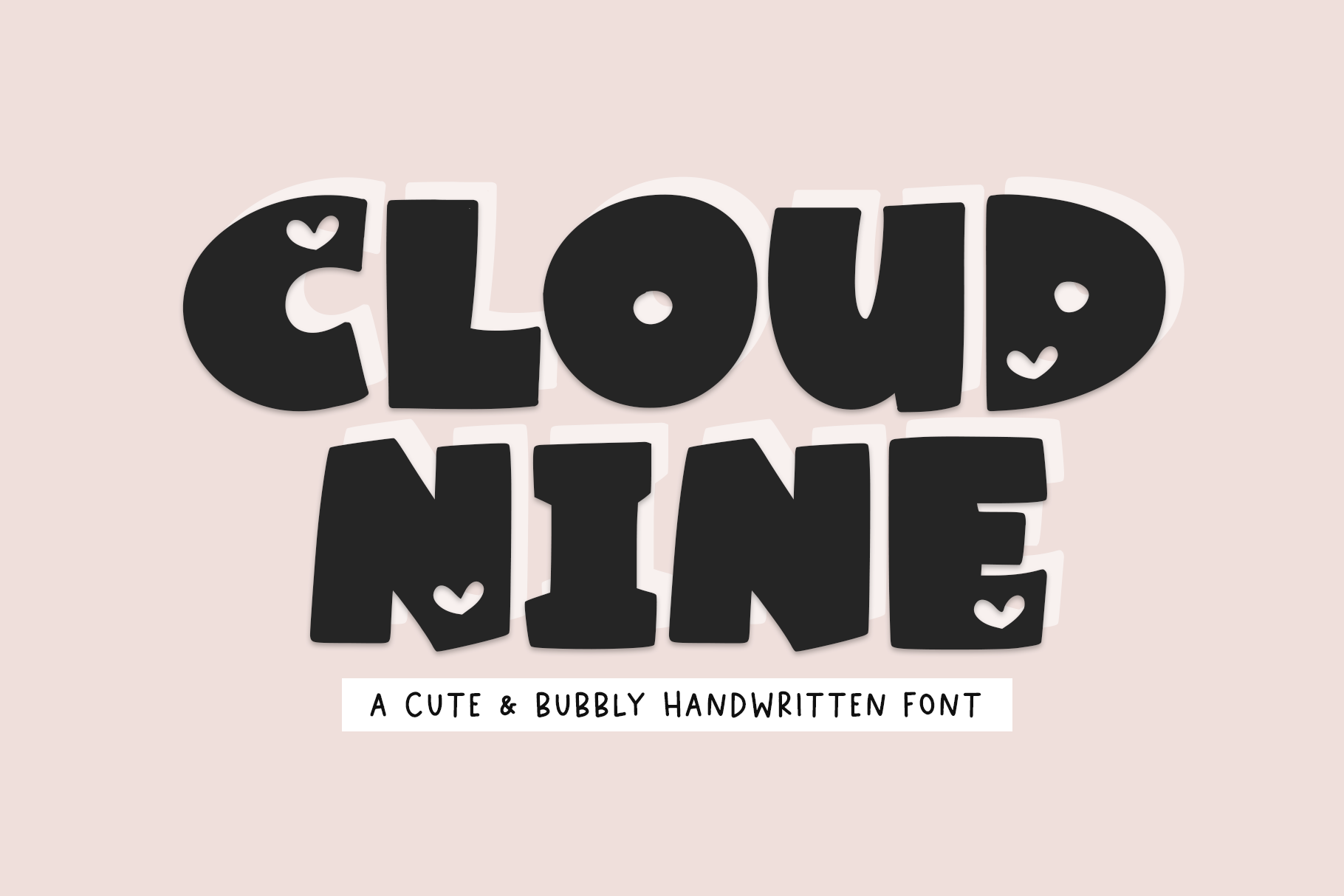
Cloud Nine - Bold Handwritten Font
Cloud Nine is a fun and bold handwritten font.
This font is perfect for quotes, headings, blogs, logos, invitations and more!